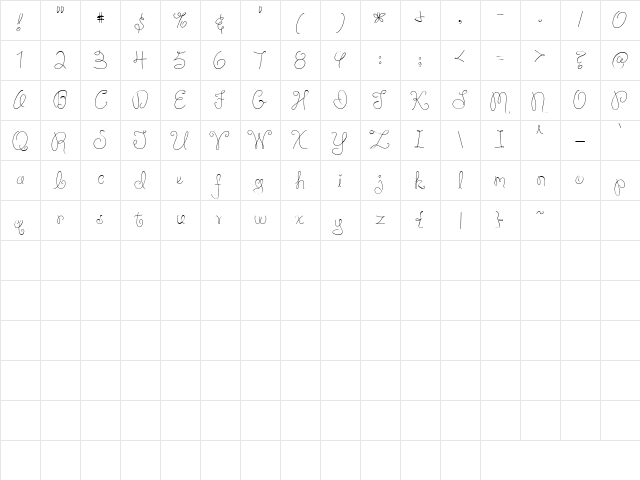
CK Curly Cursive Regular
Design Context for CK Curly Cursive Typeface
CK Curly Cursive flows with the natural rhythm of handwritten lettering, making it ideal for designs that call for warmth and personal expression.
Font Pairing: Combine CK Curly Cursive with a simple geometric sans for maximum contrast — the tension between flowing curves and clean structure is a classic typographic pairing.
Pro Tip: Use CK Curly Cursive for short runs of text — names, titles, or taglines. Extended body copy in script faces tires the eye quickly.